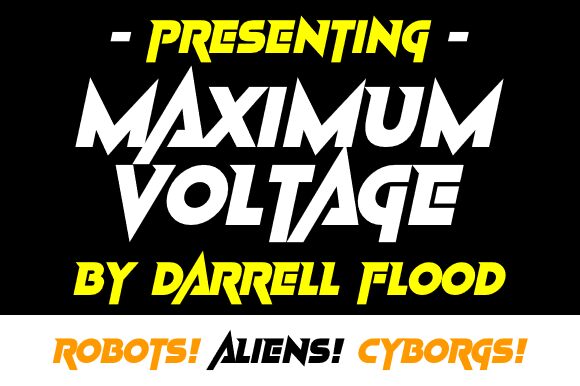
Maximum Voltage
Maximum Voltage, created by the talented designer Hawtpixel, is a modern gothic font that exudes a captivating sense of edgy sophistication. With its bold, striking letterforms, this typeface commands attention, effortlessly conveying a strong, commanding presence. The sharp, angular lines and angular serifs lend an air of contemporary elegance, while the overall aesthetic evokes a sense of raw power and energy.
This versatile font seamlessly transitions between a variety of design applications, from bold headlines and impactful branding to dynamic editorial layouts. Its versatility makes it an excellent choice for projects that require a bold, attention-grabbing typographic treatment, such as album covers, movie posters, or high-impact advertising campaigns.